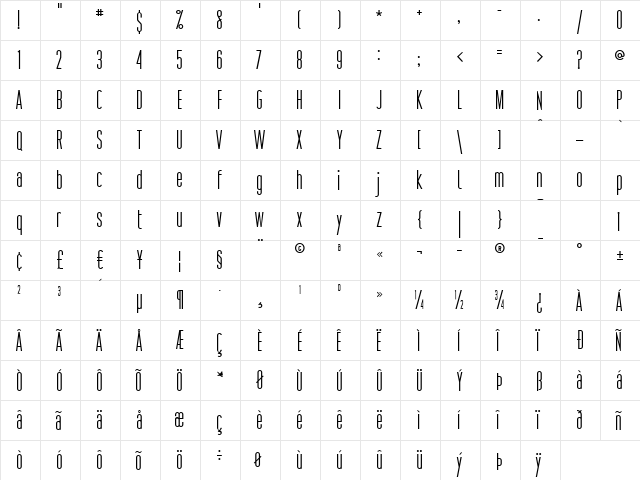
Pacific Standard Light
Design Context for Pacific Standard Typeface
Pacific Standard takes a measured approach to typography — its balanced proportions and neutral character make it a reliable workhorse for both digital and print work. Its slender proportions lend an understated elegance to any composition.